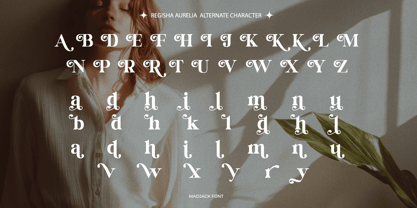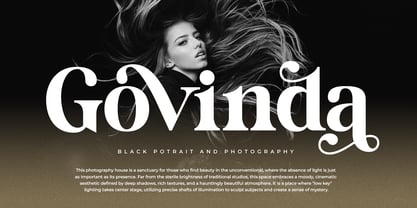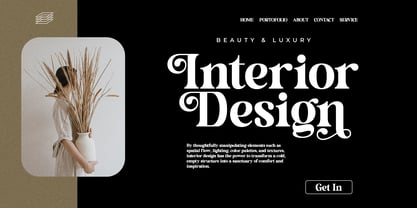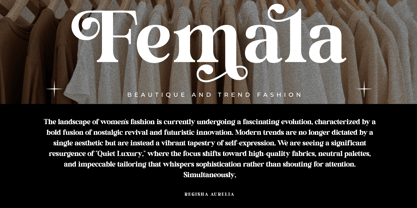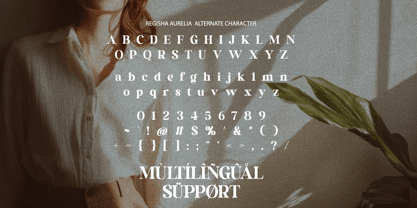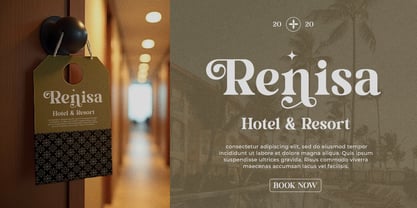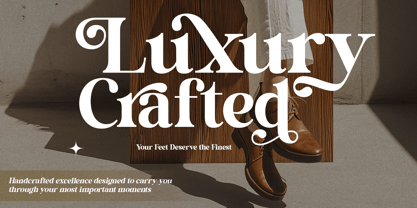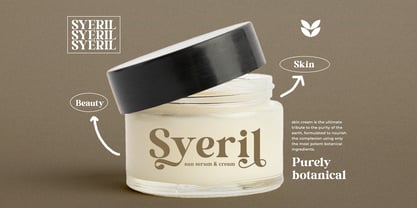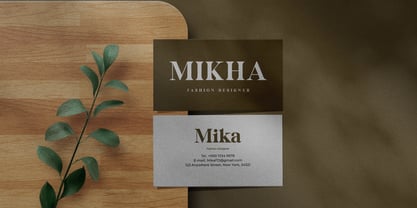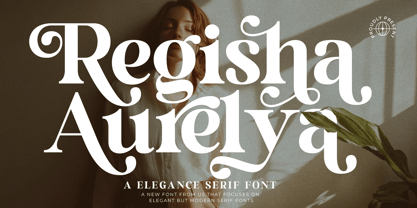
Regisha Aurelia
The Regisha Aurelia Font Family was designed by Zaki Muhammad and published by madjack.font. Regisha Aurelia contains 2 styles and family package options. More about this family
Regisha Aurelia is a modern, clean sans serif typeface designed with an elegant and luxurious character. This typeface features unique letterforms with smooth curves and refined proportions, making it perfect for high-end visual communications.
Regisha Aurelia is perfect for fashion branding, editorial layouts, luxury logos, posters, magazine covers, beauty products, and modern advertisements. Its bold yet soft look creates a strong visual identity while maintaining a clean and contemporary feel.
This typeface is designed to stand out at large sizes, conveying a confident, stylish, and premium feel for creative projects that require sophistication.